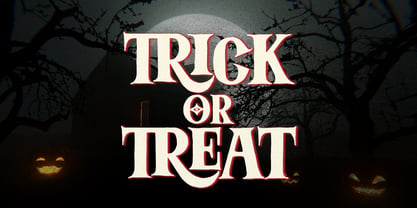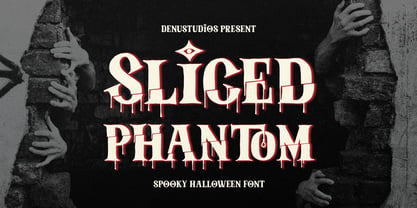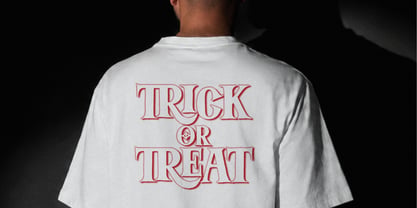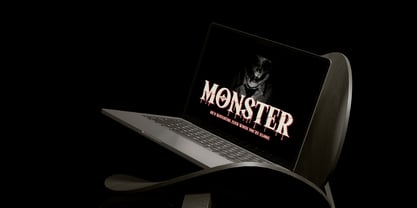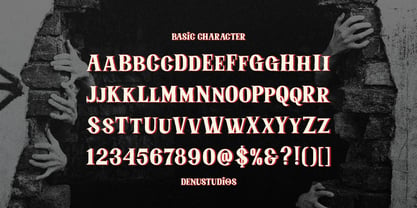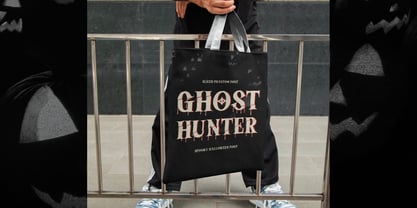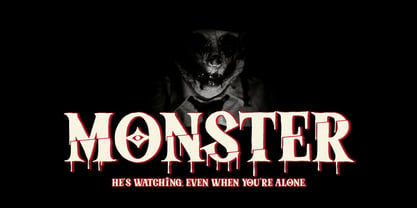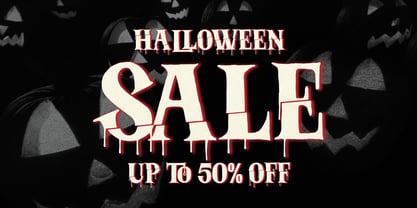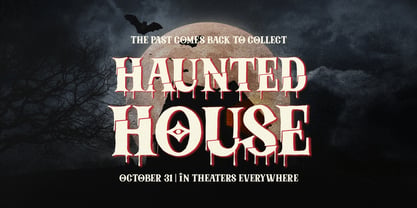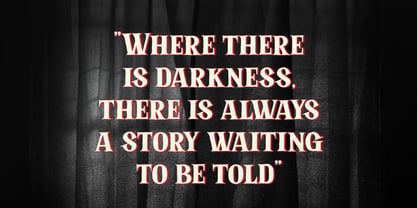
Sliced Phantom
La familia tipográfica Sliced Phantom fue diseñada por Dede Nugraha y publicada por Denustudio. Sliced Phantom contiene 1 estilos. Más información sobre esta familia
Sliced Phantom | Spooky Halloween Font, from Denustudios, suitable for any projects such as: logos, branding projects, homeware designs, product packaging, mugs, quotes, posters, shopping bags, t-shirts, book covers, name card, invitation cards, greeting cards, label, photography, watermark, special events, and all your other lovely projects that need Halloween Font a taste.